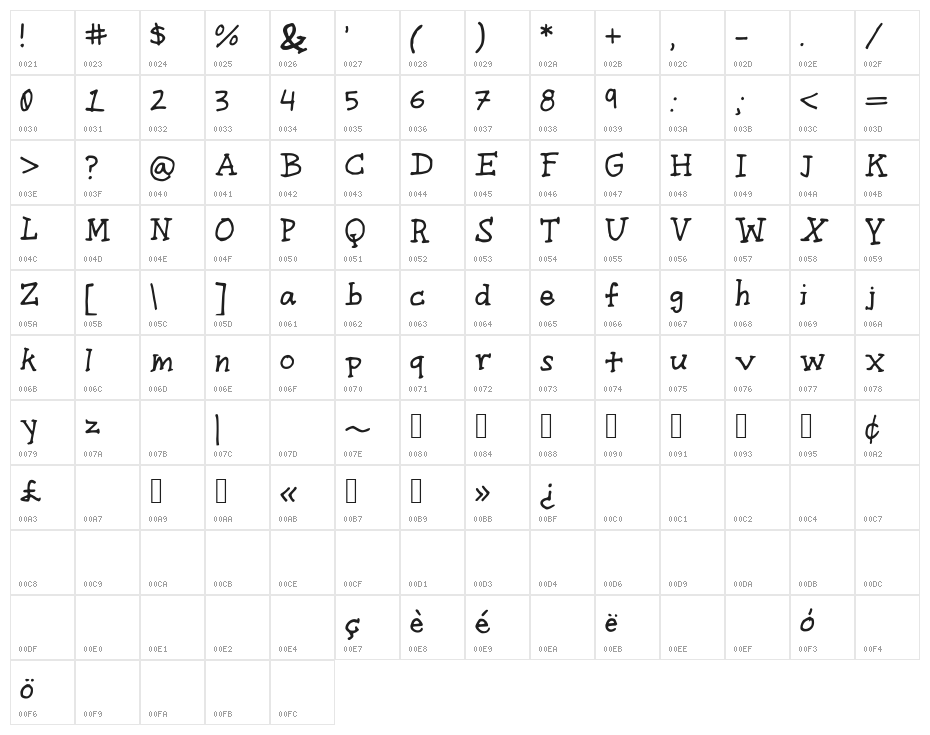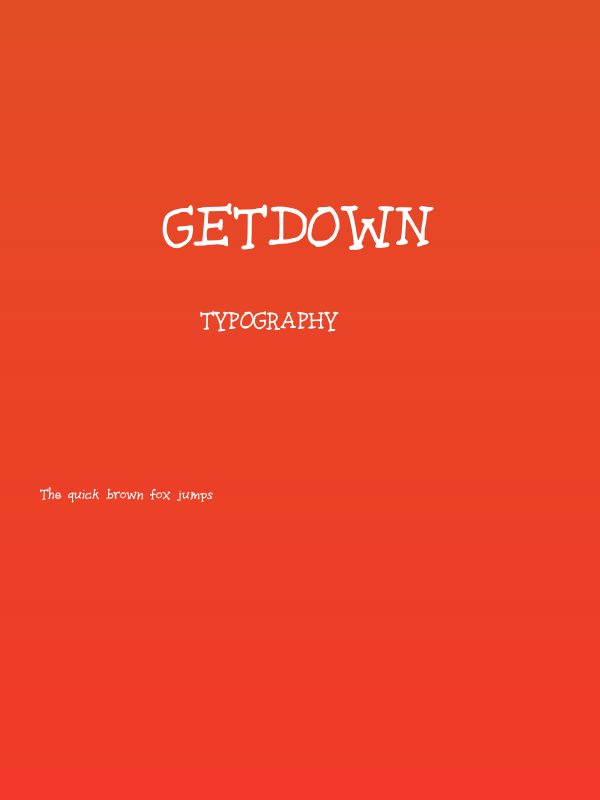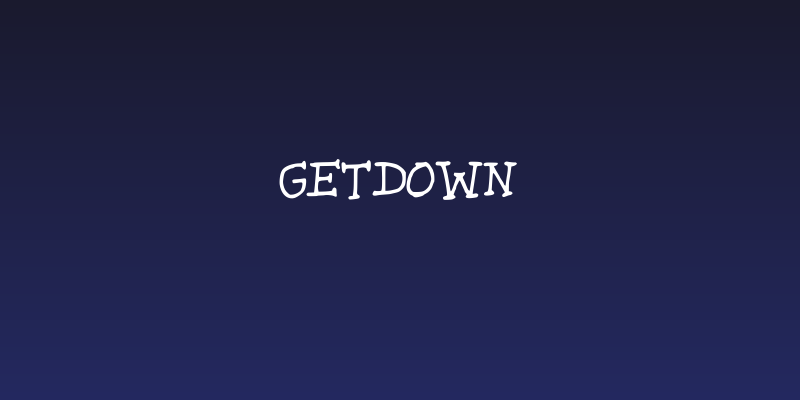
getdown Font
getdown Description
This font exhibits a playful and informal style, characterized by its hand-drawn appearance. The letters have a slightly uneven baseline, giving it a whimsical and casual feel. The strokes are bold and consistent, with rounded edges that soften the overall look. The uppercase and lowercase letters maintain a cohesive style, while the numerals and special characters integrate seamlessly. This font's unique personality makes it suitable for creative and fun projects, where a relaxed and approachable tone is desired.
| Proposed Projects | Ideal for children's books, greeting cards, playful branding, and casual invitations. |